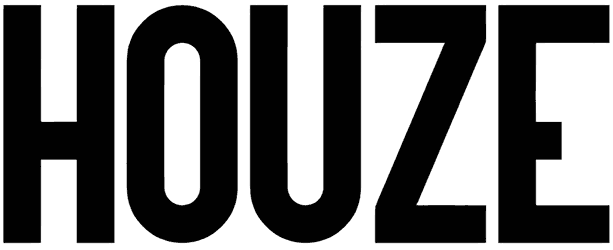
Houze Font
Wish to make a visual masterpiece for leveling up in the designing society, so it’s better to lend a hand to our website’s font collection? Houze, as a sans serif font, proved handy to make use of its modernity to assemble a precious outcome.
Moreover, its two different types will be able to add more flexibility and variety to many digital applications, websites, magazines, branding, and whatnot. By the way, remember that this case doesn’t have lowercase letters and numbers.